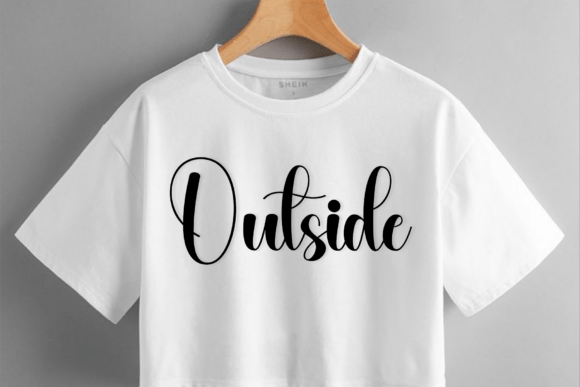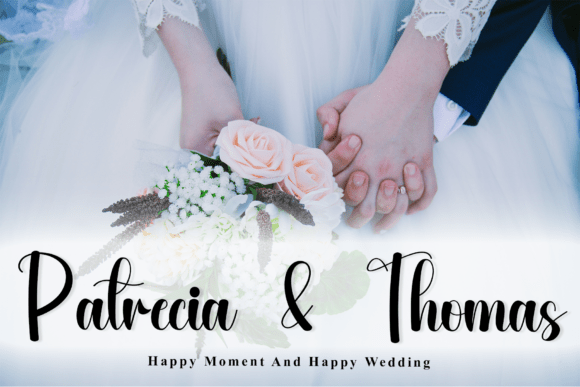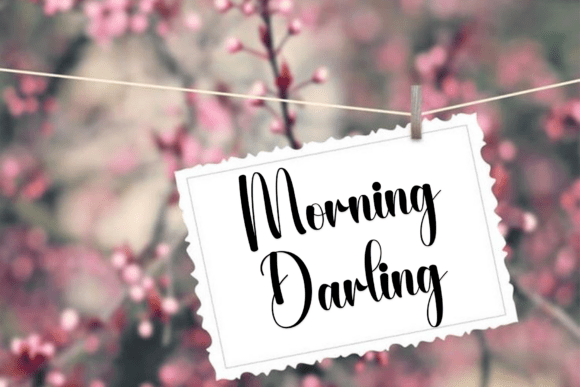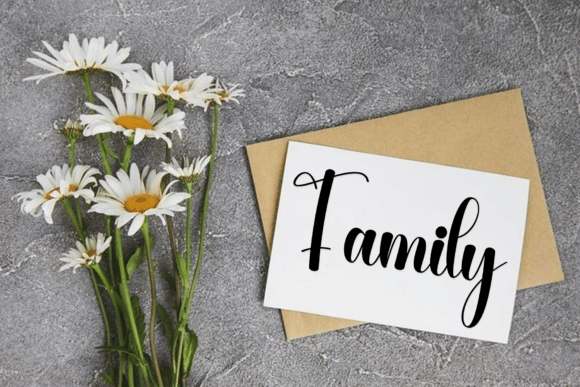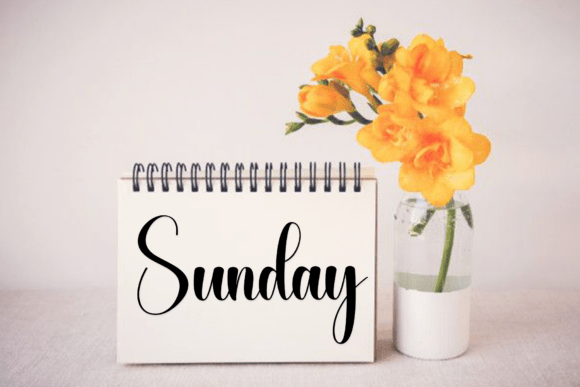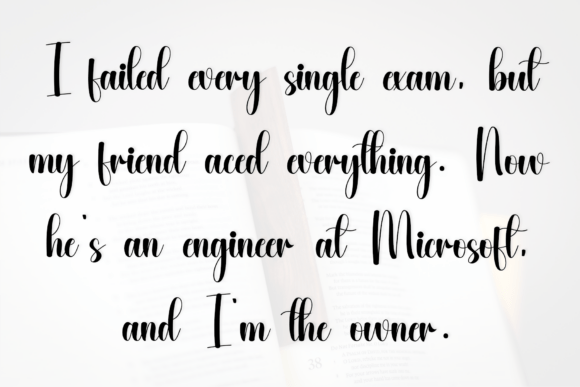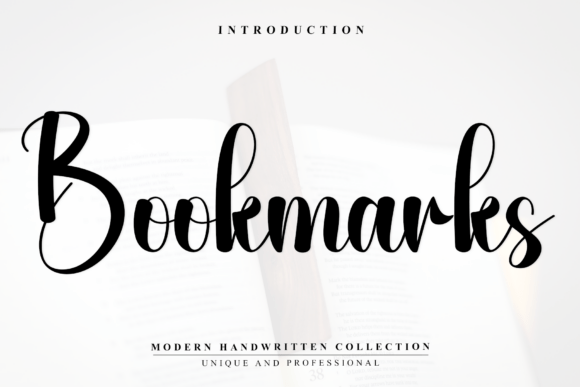
Introducing Bookmarks Font: Elevate Your Designs with Luxurious Handwritten Elegance
In the realm of typography, few fonts manage to convey the essence of luxury and professionalism as effectively as Bookmarks Font. This stunningly elegant and highly refined modern handwritten script font is designed to bring a touch of sophistication and artistry to any design project. Whether you’re a seasoned designer or a crafty enthusiast, Bookmarks Font is poised to elevate your branding, packaging, or digital content to new heights of visual appeal.
The Artistry of Bookmarks Font
Bookmarks Font is more than just a typeface; it’s an expression of professional artistry. Its creation is a testament to the meticulous attention to detail and the passion for beauty that defines the work of skilled calligraphers. This exquisite font is characterized by its dramatic contrast between thick downstrokes and delicate hairlines, a feature that not only adds depth and dynamism but also imbues the text with a sense of elegance and fluidity.
Key Features of Bookmarks Font
- Dramatic Contrast: The interplay between thick and thin strokes gives Bookmarks Font its distinctive look, making it stand out in any application.
- Beautiful Ligatures and Swashes: The font includes beautifully designed ligatures and swashes that enhance its sophistication and allow for a high degree of customization and creativity.
- Modern Handwritten Script: Despite its elegance, Bookmarks Font retains the warmth and personal touch of handwritten script, making it ideal for brands looking to convey a sense of approachability and luxury.
Applications of Bookmarks Font
The versatility of Bookmarks Font makes it suitable for a wide range of design applications. Here are a few ideas to get you started:
- Branding and Logotypes: Use Bookmarks Font to create a luxurious and memorable brand identity that stands out from the competition.
- Packaging Design: Add a touch of elegance to your product packaging and make it more appealing to discerning customers.
- Stationery and Invitations: Whether you’re designing wedding invitations, business cards, or letterheads, Bookmarks Font can add a level of sophistication that’s hard to match.
- Digital Content: From blog headers to social media graphics, Bookmarks Font can help you create engaging and visually appealing content.
Why Choose Bookmarks Font?
In a market flooded with generic fonts, Bookmarks Font offers a unique combination of elegance, professionalism, and personal touch. Here are a few reasons why designers and crafters are gravitating towards this stunning typeface:
- Unique Quality: Bookmarks Font conveys the quality and artistry of a skilled calligrapher, giving your designs a distinctive edge.
- Versatility: Its adaptability across various design applications makes it a valuable addition to any designer’s toolkit.
- Ease of Use: Despite its sophisticated appearance, Bookmarks Font is easy to use and integrate into your design projects.
Bookmarks Font is a luxurious and highly refined modern handwritten script font that can transform your design projects with its elegant and professional aesthetic. Whether you’re aiming to create a high-end brand identity, design exquisite packaging, or simply add a touch of sophistication to your digital content, Bookmarks Font is an excellent choice. Its unique blend of dramatic contrast, beautiful ligatures, and swashes, along with its versatile applications, make it a valuable asset for designers and crafters looking to elevate their work.
So, why settle for ordinary when you can create something extraordinary with Bookmarks Font? Discover the power of luxurious typography and take your designs to new heights of elegance and professionalism.